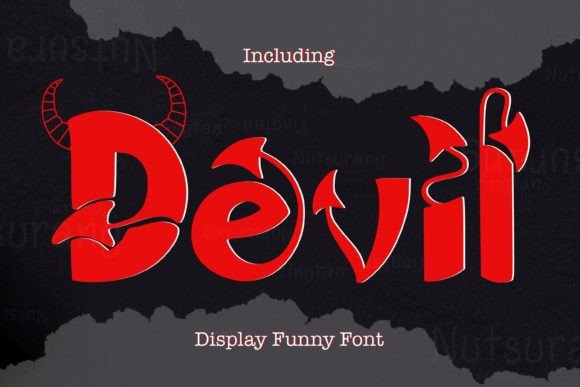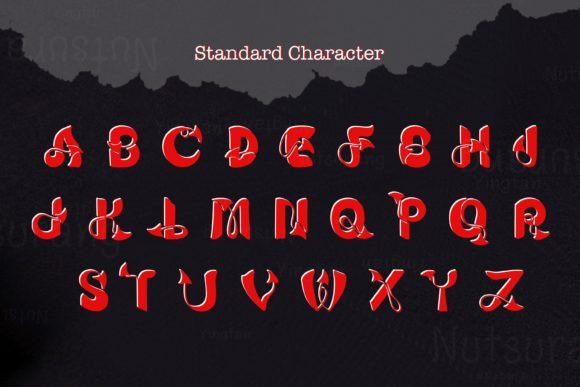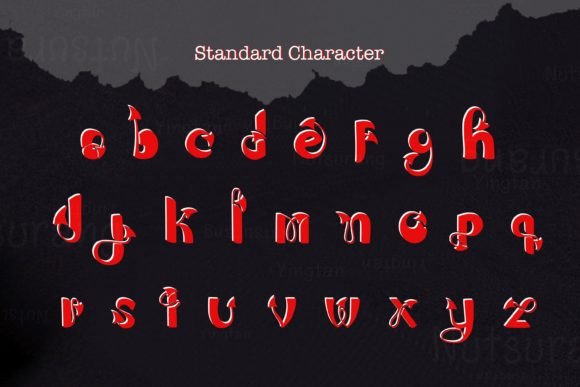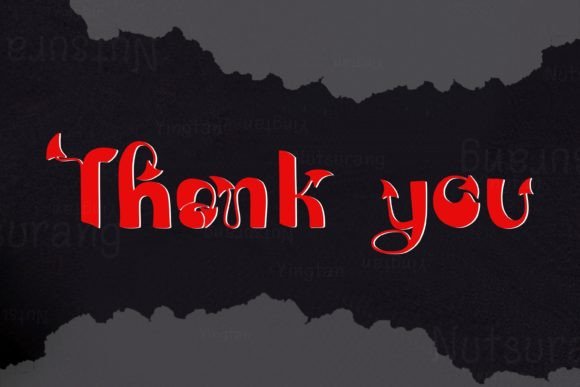
Devil Font
Devil is a scary font. The additional elements of devil’s tails, like letters, make an ambiance of horror invitations, postcards, posters, and headings for a Halloween event; this font can be used in every setting.